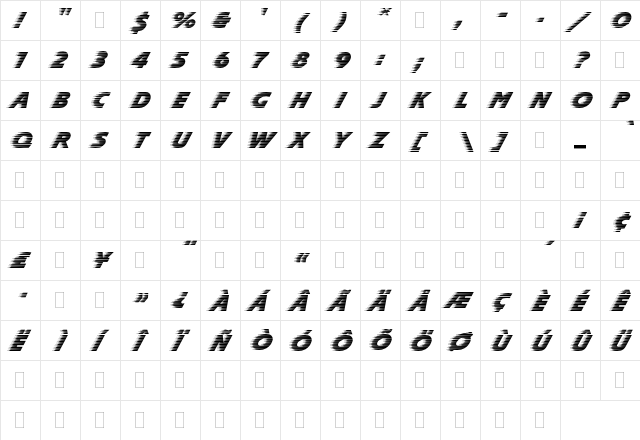
Slipstream Plain
Design Context for Slipstream Typeface
Slipstream is a composed and adaptable typeface that performs quietly and consistently across a wide range of design contexts.